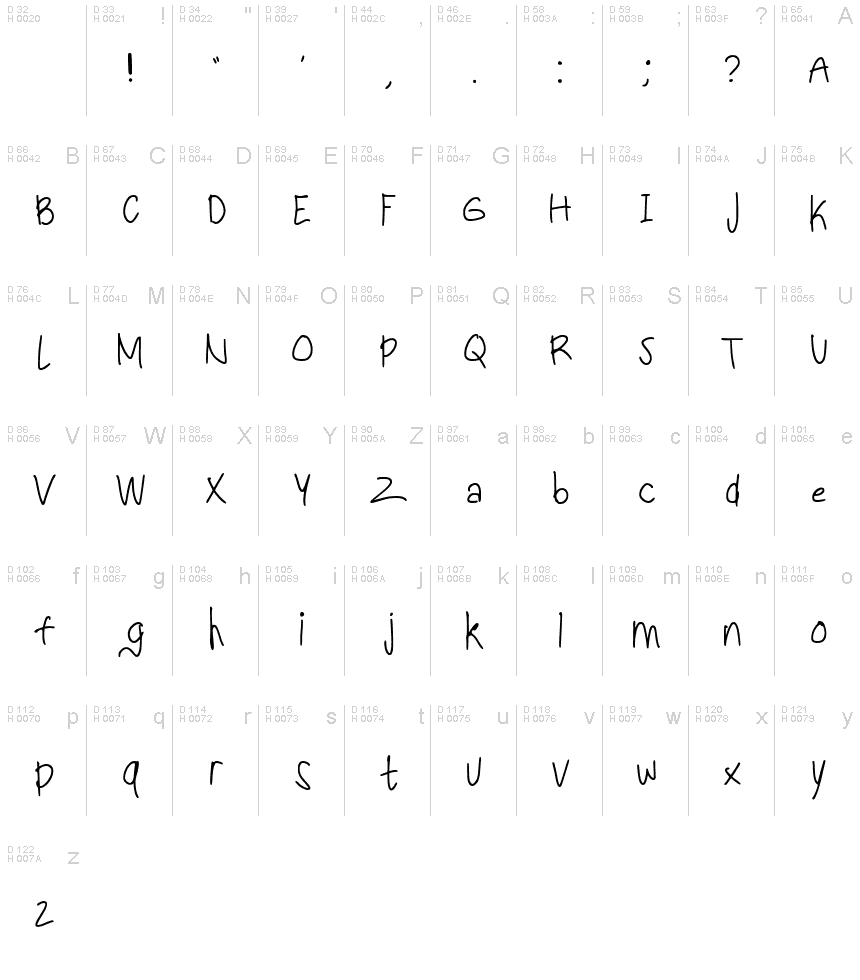
Crisontf Regular
Crisontf, a playful and whimsical font designed by Crisont F, adds a touch of personality to any project. With its light weight and casual handwritten style, this font exudes a sense of youthful energy.
Ideal for children's book covers, party invitations, or quirky greeting cards, Crisontf brings an endearing charm to your designs. Whether you're aiming for a lighthearted feel or simply want to stand out from the crowd, this amature yet unique typeface is perfect for adding a touch of unapologetic creativity to your next project.